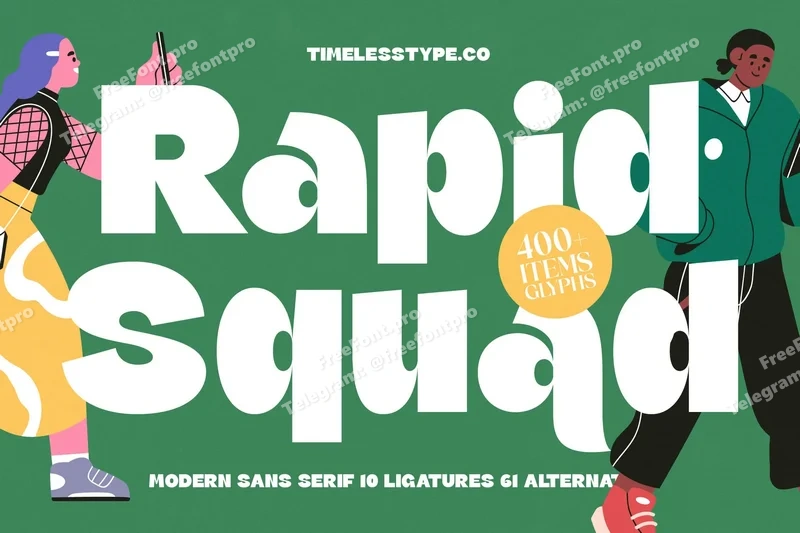
Rapid Squad – Modern Sans Serif Font
Rapid Squad is a modern sans serif display font with bold shapes and a playful contemporary style. Featuring smooth curves, strong proportions, and unique ligatures, this typeface is perfect for posters, logos, packaging, branding, social media graphics, and editorial layouts. Its versatile design blends modern energy with stylish creativity, making Rapid Squad an excellent choice for both digital and print projects.